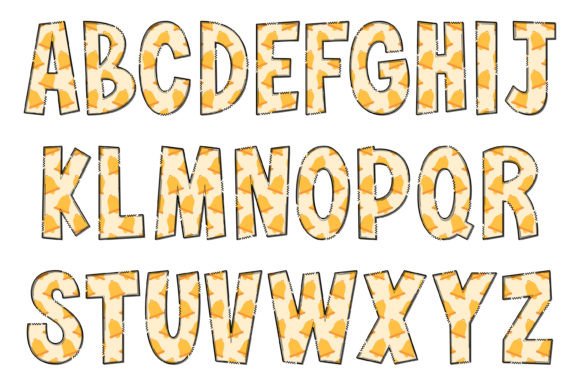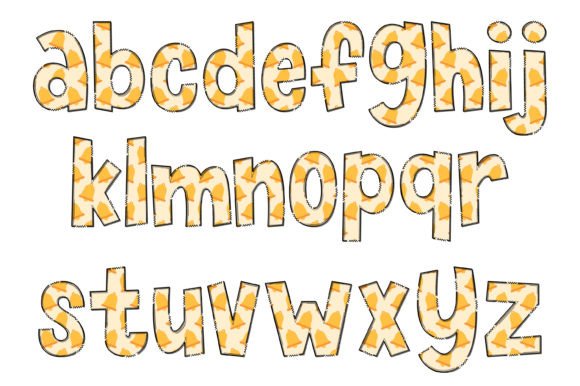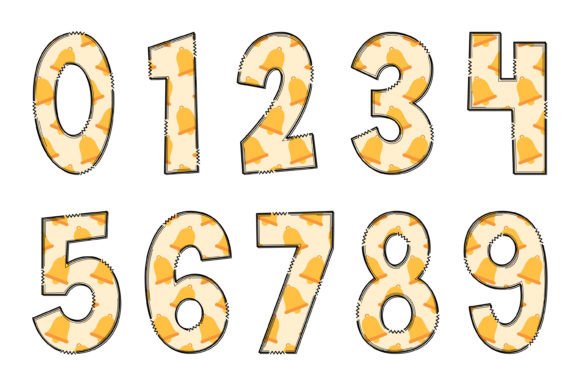
Introducing the Golden Bell Font: Adding a Touch of Whimsy to Your Designs
The Golden Bell Font is a delightful and playful typeface that has captured the hearts of designers and crafters alike. Its unique blend of whimsy and charm makes it an ideal choice for projects that require a touch of fun and creativity. In this article, we’ll explore the features and uses of the Golden Bell Font, and how it can elevate your designs to the next level.
A Font that Brings Joy and Wonder
The Golden Bell Font is designed to evoke a sense of joy and wonder, making it perfect for designs that cater to young audiences. Its playful and artistic feel is sure to captivate children’s attention, making it an excellent choice for children’s books, educational materials, and other kid-friendly content. The font’s whimsical nature also makes it suitable for posters, invitations, greeting cards, and other creative projects that require a dash of personality.
Key Features of the Golden Bell Font
- Whimsical Design: The Golden Bell Font boasts a unique and imaginative design that is sure to stand out in any project.
- Colorful and Vibrant: The font’s bright and cheerful colors add to its playful appeal, making it perfect for designs that require a pop of color.
- Easy to Read: Despite its whimsical nature, the Golden Bell Font remains easy to read, ensuring that your message is conveyed clearly and effectively.
Uses of the Golden Bell Font
The Golden Bell Font is versatile and can be used in a variety of design projects, including:
- Children’s Books: The font’s playful and imaginative design makes it perfect for storybooks, picture books, and other children’s literature.
- Posters and Flyers: The Golden Bell Font’s bold and colorful design makes it ideal for eye-catching posters and flyers.
- Invitations and Greeting Cards: The font’s whimsical nature makes it suitable for invitations, greeting cards, and other social stationery.
- Educational Materials: The Golden Bell Font’s playful design makes it perfect for educational materials, such as worksheets, activity sheets, and other learning resources.
Tips for Using the Golden Bell Font
To get the most out of the Golden Bell Font, consider the following tips:
- Pair with Other Fonts: Combine the Golden Bell Font with other fonts to create a unique and visually appealing design.
- Experiment with Colors: Take advantage of the font’s colorful nature by experimenting with different color schemes and combinations.
- Use for Headings and Titles: The Golden Bell Font is perfect for headings and titles, adding a touch of whimsy and personality to your design.
The Golden Bell Font is a delightful and versatile typeface that is sure to bring a touch of whimsy and fun to your designs. Its playful and artistic feel makes it perfect for projects that cater to young audiences, while its ease of readability ensures that your message is conveyed clearly and effectively. Whether you’re a designer, crafter, or DIY enthusiast, the Golden Bell Font is an excellent choice for adding a dash of personality to your projects.
Get Creative with the Golden Bell Font
So why not give the Golden Bell Font a try? With its unique blend of whimsy and charm, it’s sure to inspire your creativity and take your designs to the next level. Whether you’re working on a children’s book, poster, invitation, or greeting card, the Golden Bell Font is the perfect choice for adding a touch of fun and personality to your project.